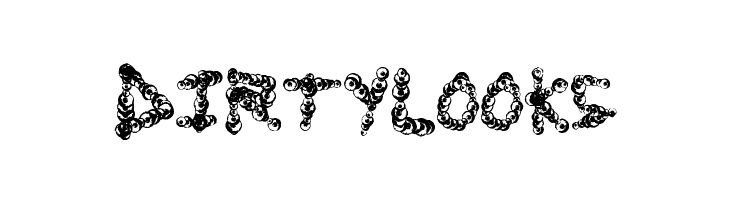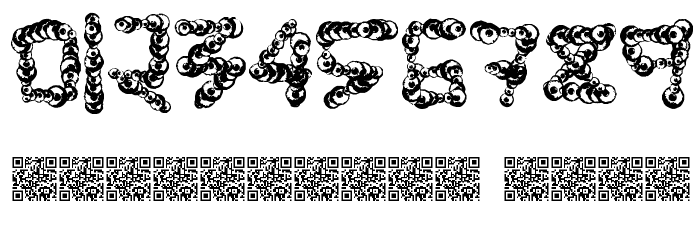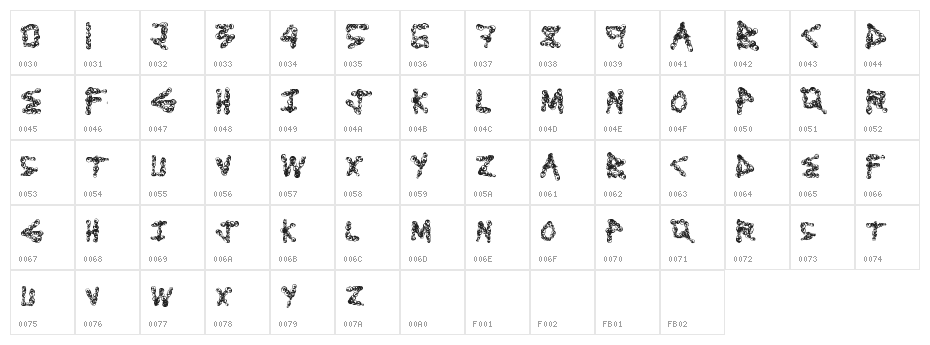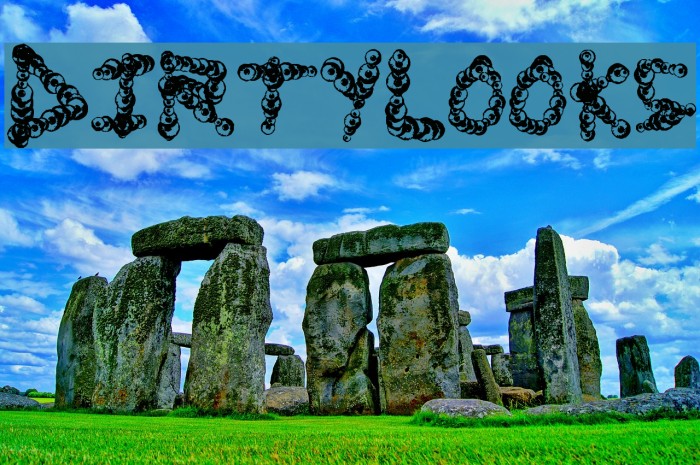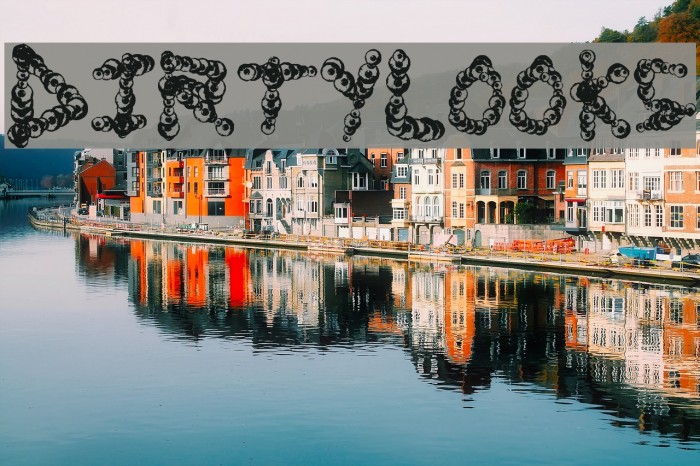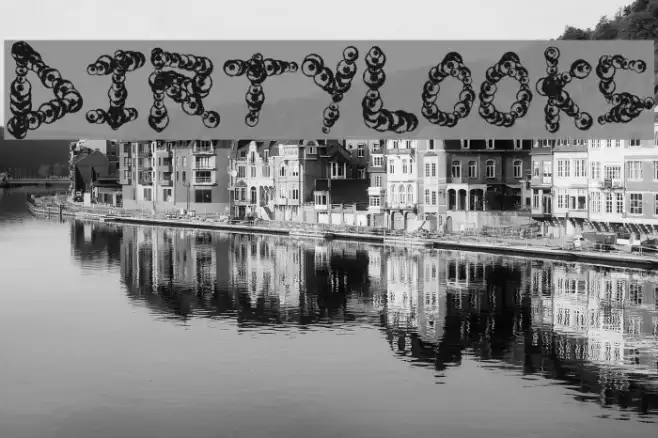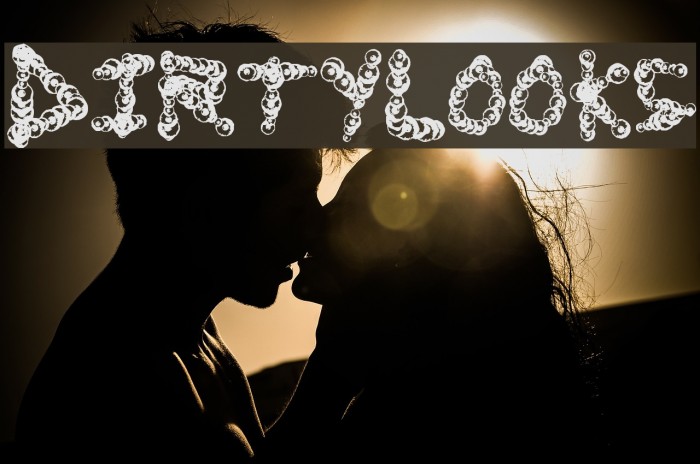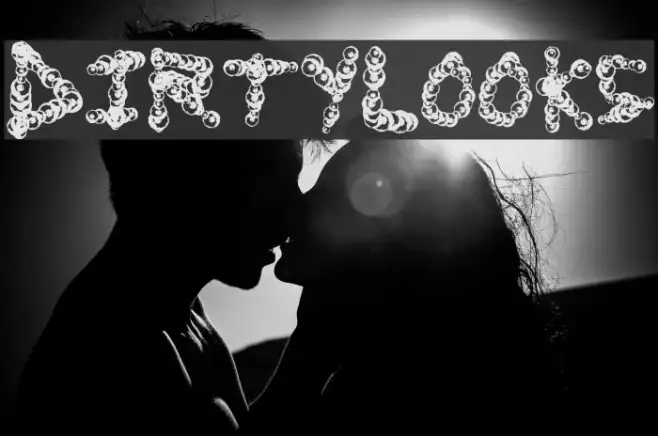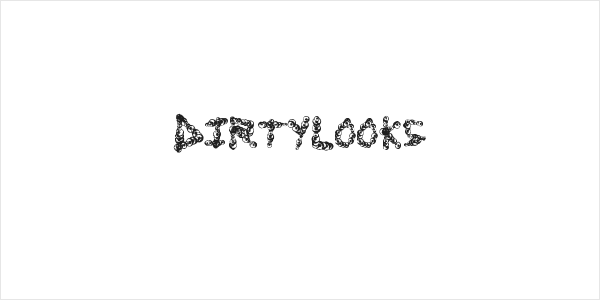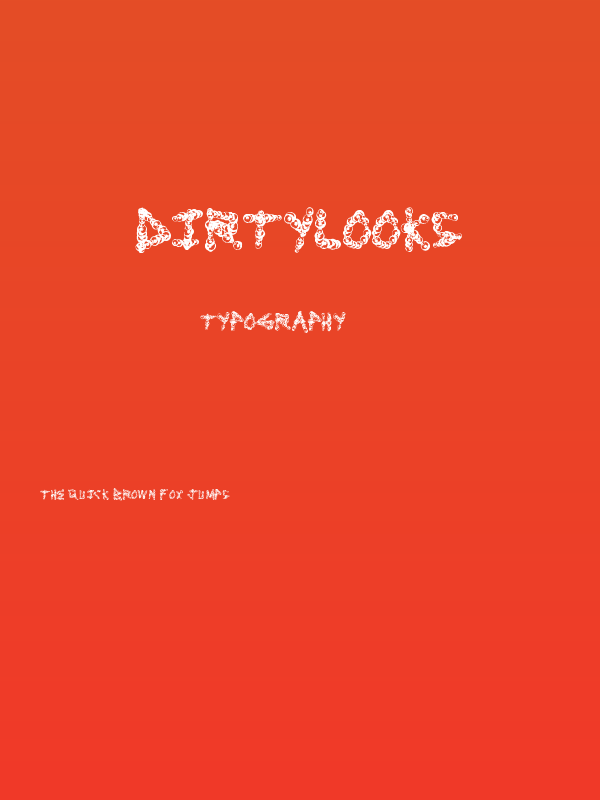
DirtyLooks Font
DirtyLooks Description
This font features a highly decorative and playful style, characterized by its unique bubble-like texture. Each character is composed of overlapping circular shapes, creating a sense of depth and movement. The font maintains a consistent weight throughout, with rounded edges that give it a soft and approachable appearance. The intricate design makes it stand out, ideal for projects that require a bold and eye-catching typeface. Despite its complexity, the characters remain legible, making it suitable for various creative applications.
| Overall Style | Playful and Decorative |
| Proposed Projects | Ideal for posters, album covers, children's book titles, and creative branding projects. |